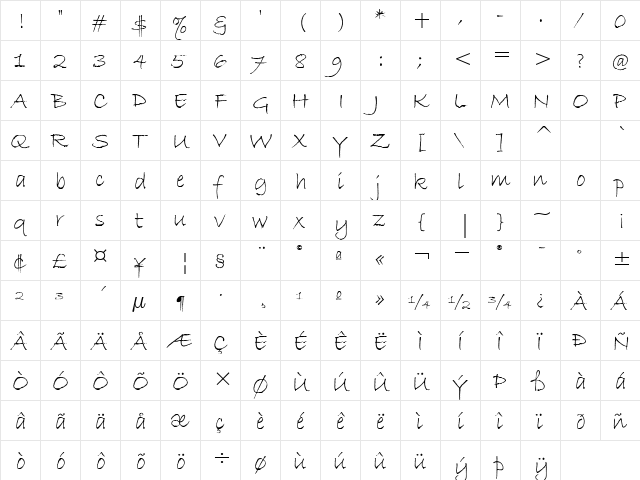
Bradley Hand ITC TT Regular
Design Context for Bradley Hand ITC TT Typeface
Bradley Hand ITC TT flows with the natural rhythm of handwritten lettering, making it ideal for designs that call for warmth and personal expression.
Font Pairing: Combine Bradley Hand ITC TT with a simple geometric sans for maximum contrast — the tension between flowing curves and clean structure is a classic typographic pairing.
Pro Tip: Pair Bradley Hand ITC TT with a clean sans-serif for supporting text. The contrast between fluid script and geometric structure creates an elegant typographic hierarchy.